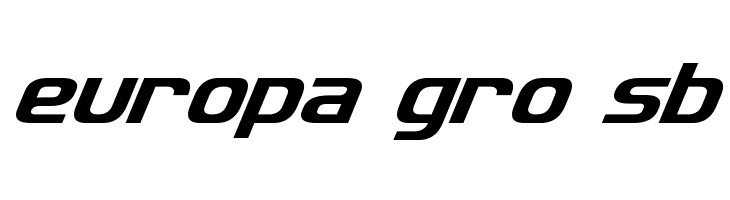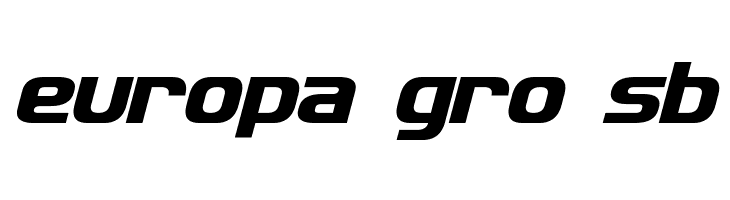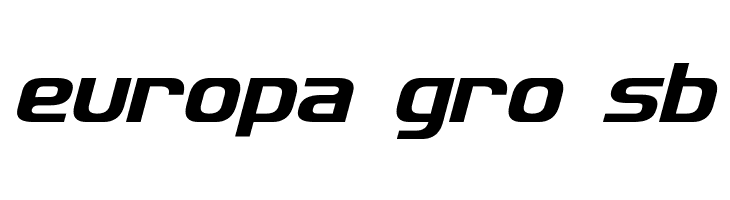
A modern, geometric font with bold, uniform strokes and a sleek design.
A bold, geometric font with a modern and impactful style.
A bold, modern, and condensed font with a geometric style.
A bold, condensed typeface with a modern geometric style.
A bold, italic, and condensed font with a modern and dynamic style.
A modern, condensed italic font with a sleek and dynamic style.
A modern, italicized font with a sleek and dynamic style.
A sleek, oblique font with a modern and dynamic style.